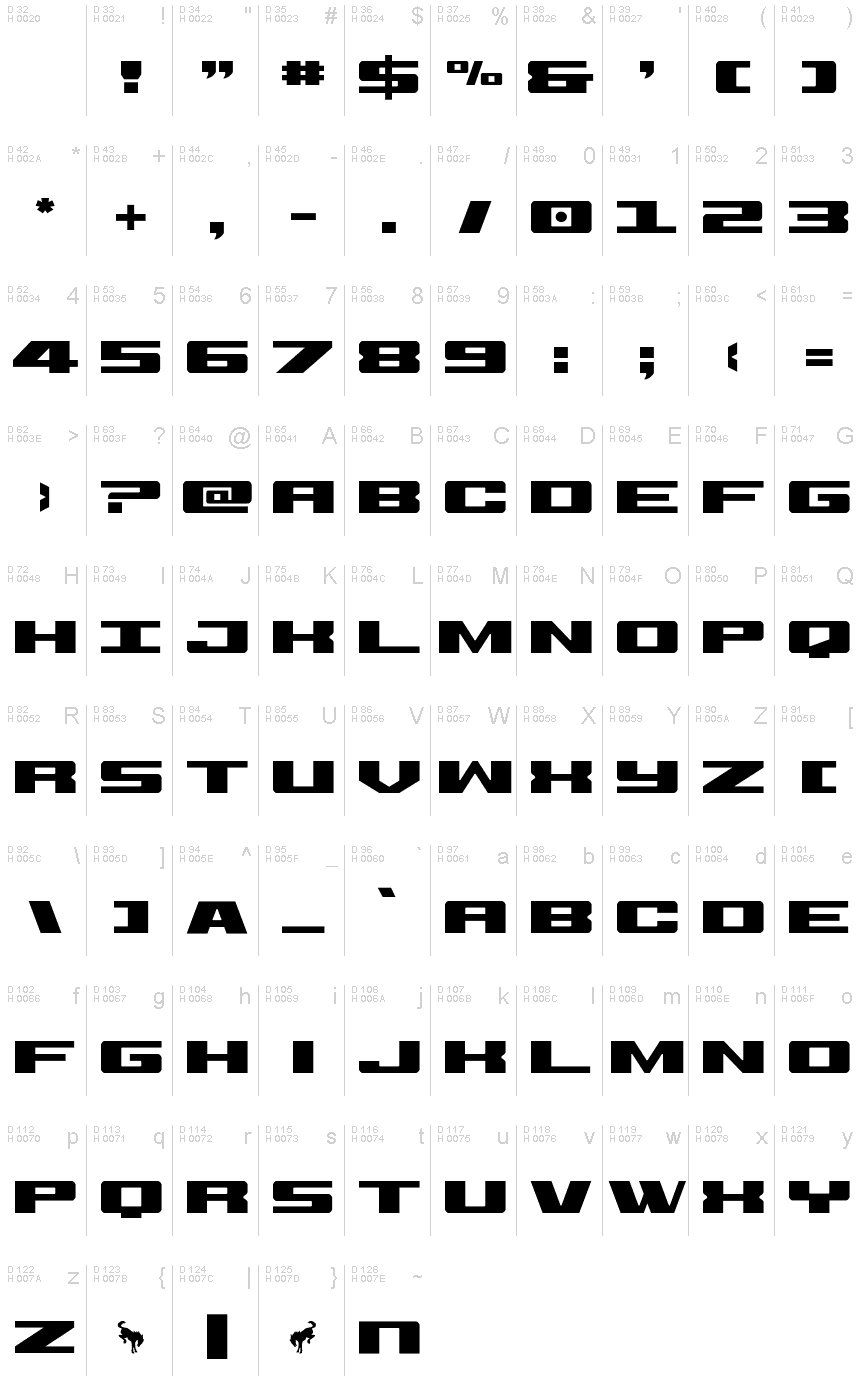
Buckin' Bronc Title
Buckin' Bronc Title by Iconian Fonts gallops into the spotlight, a display font with an extra-bold techno twist. Its extra-expanded width and cutting-edge style make it a standout choice for those looking to inject energy and modernity into their creative projects. Ideal for eye-catching headlines, dynamic logos, or any design craving a robust typographical statement, Buckin' Bronc Title is as untamed and bold as its name suggests.
The font's distinct character promises to give your work an edge in the competitive terrain of visual communication – whether it’s digital media, print campaigns, or innovative branding endeavors. Embrace the spirited personality of Buckin' Bronc Title and let your designs ride high with contemporary flair.